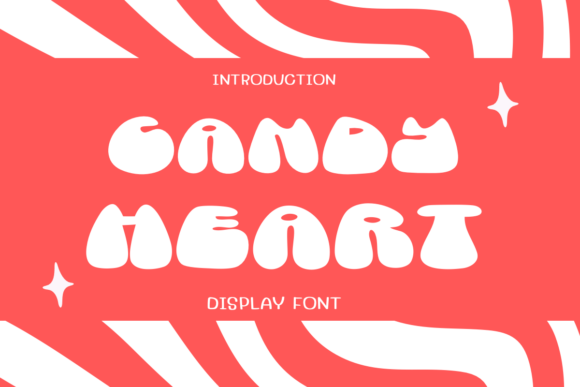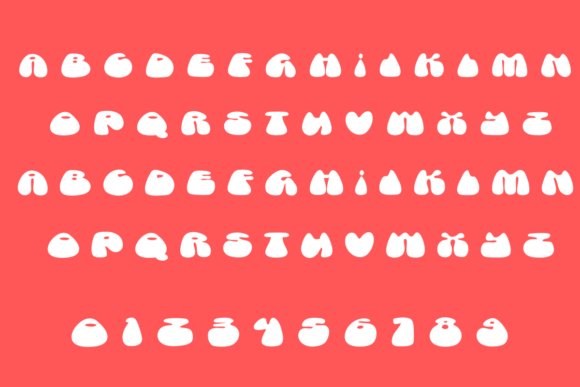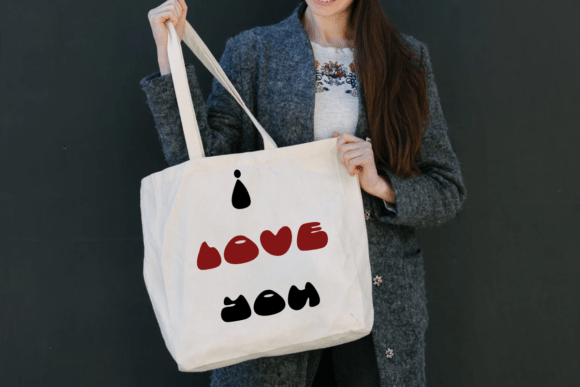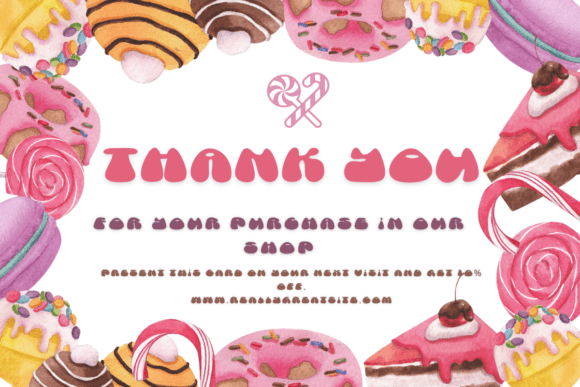
Candy Heart Font
About the Candy Heart Font
Explore the possibilities with Candy Heart Font, a font that offers both beauty and functionality. Candy Heart is a fun display font. You can use it for taking notes, writing a diary, or making greeting cards. However, you can still use it for other designs, such as banners, content, mugs, cards, shirts, stationery, social media posts, and more!
Candy Heart’s playful, rounded forms make it ideal for headlines, short bursts of text in branding materials, and eye-catching packaging designs. It excels in applications where a friendly, approachable aesthetic is desired, such as children’s products or sweet treat-related businesses. Avoid using it for body copy or lengthy paragraphs; its less-than-optimal x-height makes extended reading difficult.
Pairing Candy Heart with a clean sans-serif like Open Sans for body text creates a strong visual contrast and balanced readability. Alternatively, a more playful script font, such as Pacifico, could amplify the fun and whimsical nature of Candy Heart, especially for projects targeting younger demographics. For a more sophisticated look, consider pairing it with a geometric sans-serif like Montserrat.
Candy Heart Font Usage Examples
Candy Heart Font Example